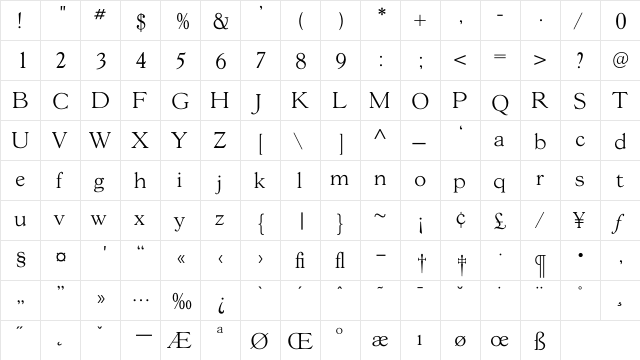
GoudY38Light Regular Font Preview
GoudY38Light Regular
Design Context for GoudY38Light Typeface
GoudY38Light is a composed and adaptable typeface that performs quietly and consistently across a wide range of design contexts. Its slender proportions lend an understated elegance to any composition.